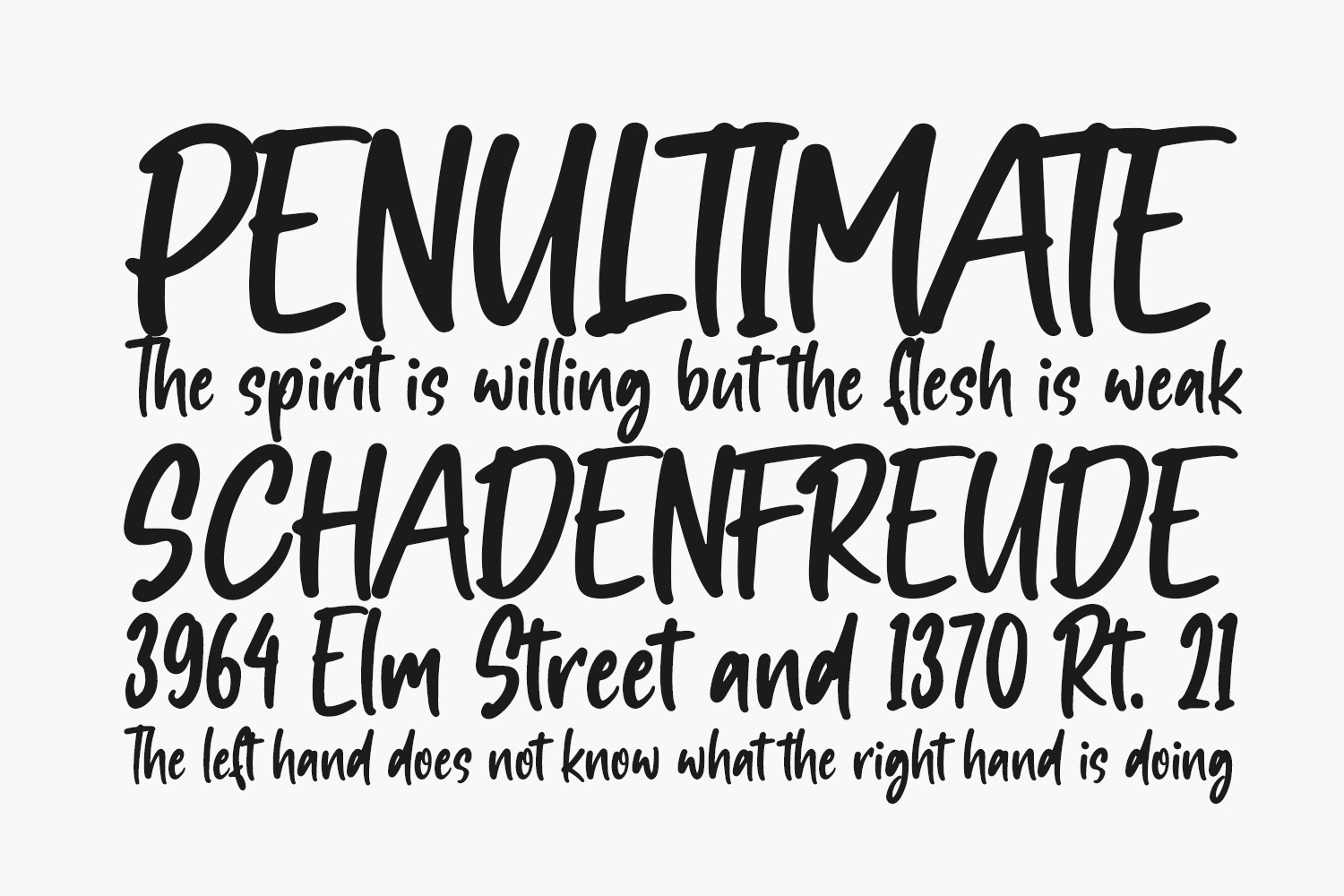
Force Runner Free Font is a casual, trendy, and laid-back handwritten font. This adaptable font will look great on a variety of design ideas. It will add a fun and friendly touch to each of your projects. Force Runner Free Font was designed by NJ Studio and is free for personal use only. Please purchase the full version for commercial use.